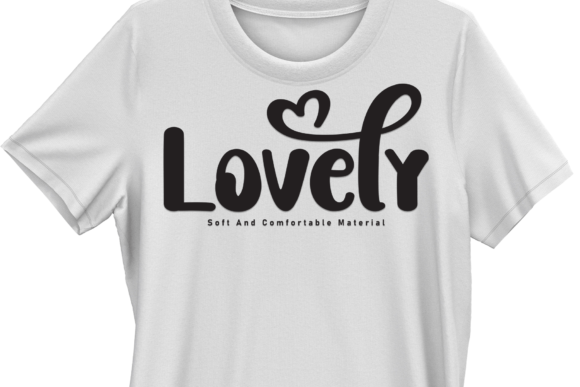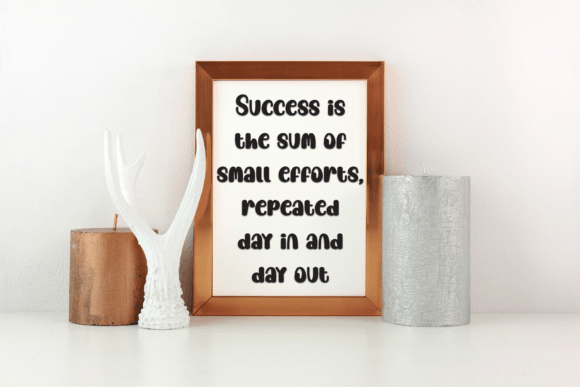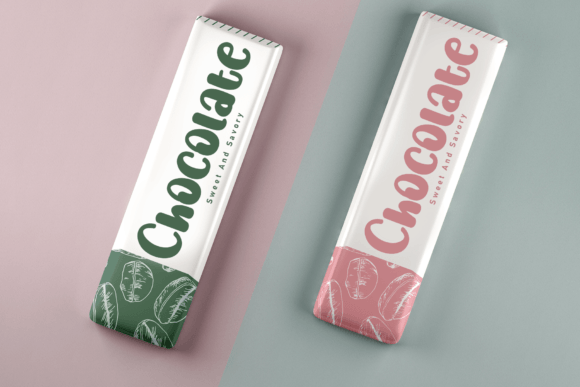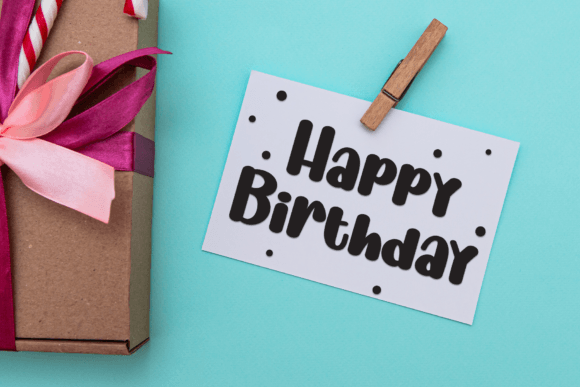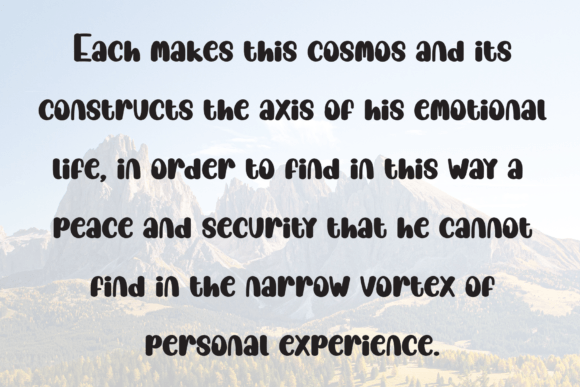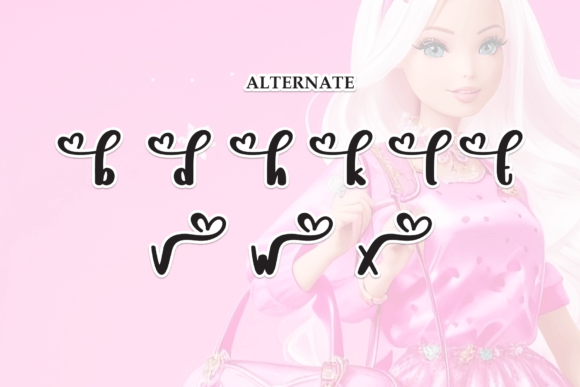
Introduction to Barbie Sweet Font
Barbie Sweet is an exquisite handwritten font, masterfully designed to become a true favorite.
Key Features of Barbie Sweet Font